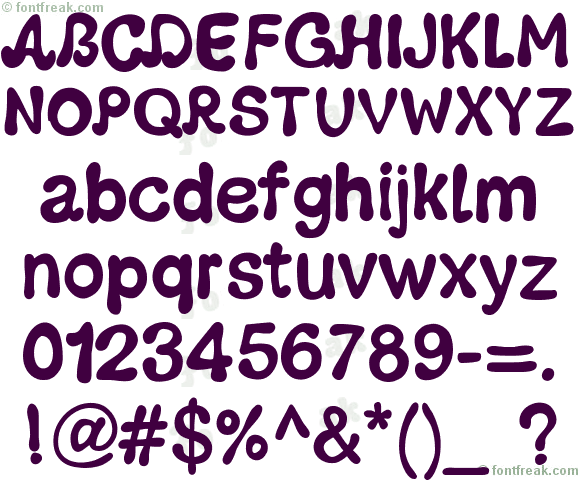
PWGroovy
About PWGroovy
The PWGroovy font by Peax Webdesign is a delightful display typeface characterized by its playful and whimsical style. This font falls into the decorative category, making it an excellent choice for projects that require a unique and eye-catching aesthetic. The strokes are bold and rounded, providing a friendly, approachable vibe, while the overall design features a consistent weight that ensures legibility. The spacing between characters is well-balanced, allowing for easy reading, even at larger sizes.
PWGroovy is particularly well-suited for a variety of creative applications. It excels in vibrant wedding invitations, where its quirky charm can set a joyful tone for the celebration. Additionally, this font works wonderfully on movie posters, capturing the attention of potential viewers with its fun and dynamic appearance. Restaurant menus can also benefit from PWGroovy, especially for casual dining establishments that want to convey a relaxed atmosphere. Moreover, it serves well for social media graphics, enhancing the visual appeal of posts aimed at engaging audiences.
This font targets a diverse audience, including graphic designers looking for fresh typography options, small business owners wanting to add personality to their branding, and content creators seeking to elevate their visual storytelling.
What sets PWGroovy apart is its ability to blend fun with functionality. Its unique design not only draws attention but also maintains readability, making it a versatile choice for various creative projects. With the PWGroovy font free download, users can easily incorporate this charming typeface into their work, adding a distinctive flair that resonates with their target audience. Embrace the groovy vibe and let your designs stand out with this exceptional font.